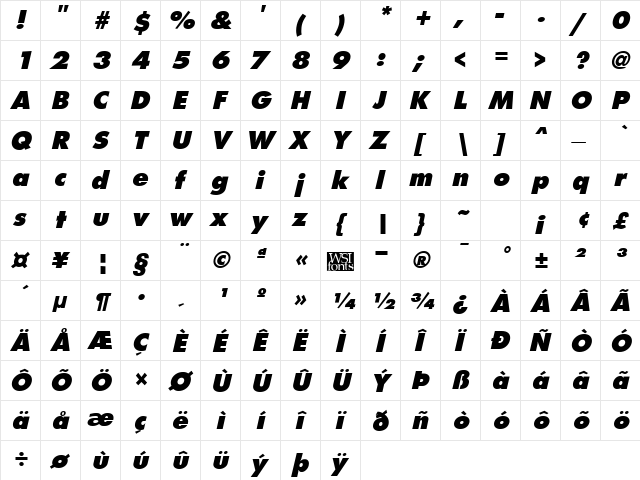
FuturistExtrabold Italic Font Preview
Design Context for FuturistExtrabold Typeface
FuturistExtrabold channels digital-age aesthetics through its sharp, structured letterforms — ideal for brands that want to signal innovation. Its italic angle brings a sense of urgency and motion to the letterforms. Its bold stroke weight gives it real presence on the page.
Pro Tip: Try FuturistExtrabold with generous letter-spacing in UI labels and navigation — the geometric forms benefit from room to breathe.